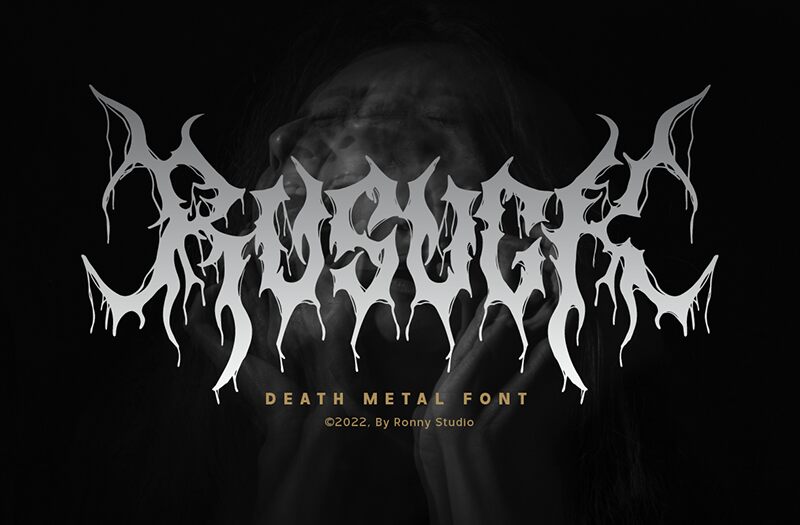
Rusuck
Rusuck font, designed by Ronny Studio, is a striking example of modern gothic typography with an unmistakable edge. Its daring, jagged forms create a sense of tension and intrigue, embodying a scary aesthetic that demands attention. The condensed nature of the letters amplifies their intensity, making each character feel like an emblem of rebellion and dark allure.
Visually captivating, Rusuck excels in settings where drama is desired—think horror themes, music album covers, or avant-garde fashion branding. Its unique style effortlessly captures the imagination, inviting viewers into a world that teeters on the edge of eerie sophistication. For designers seeking to make a bold statement while maintaining an air of modernity, Rusuck provides the perfect blend of artistry and impact.